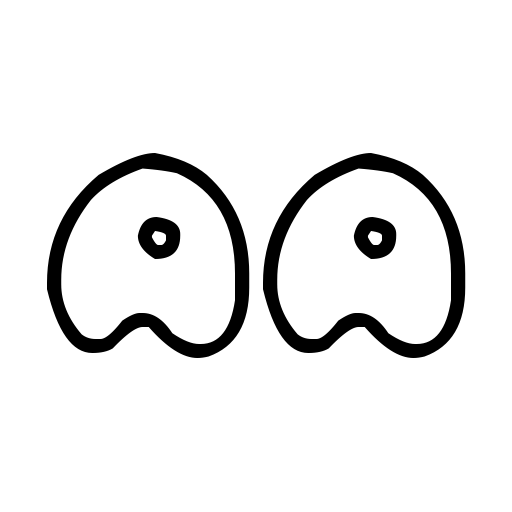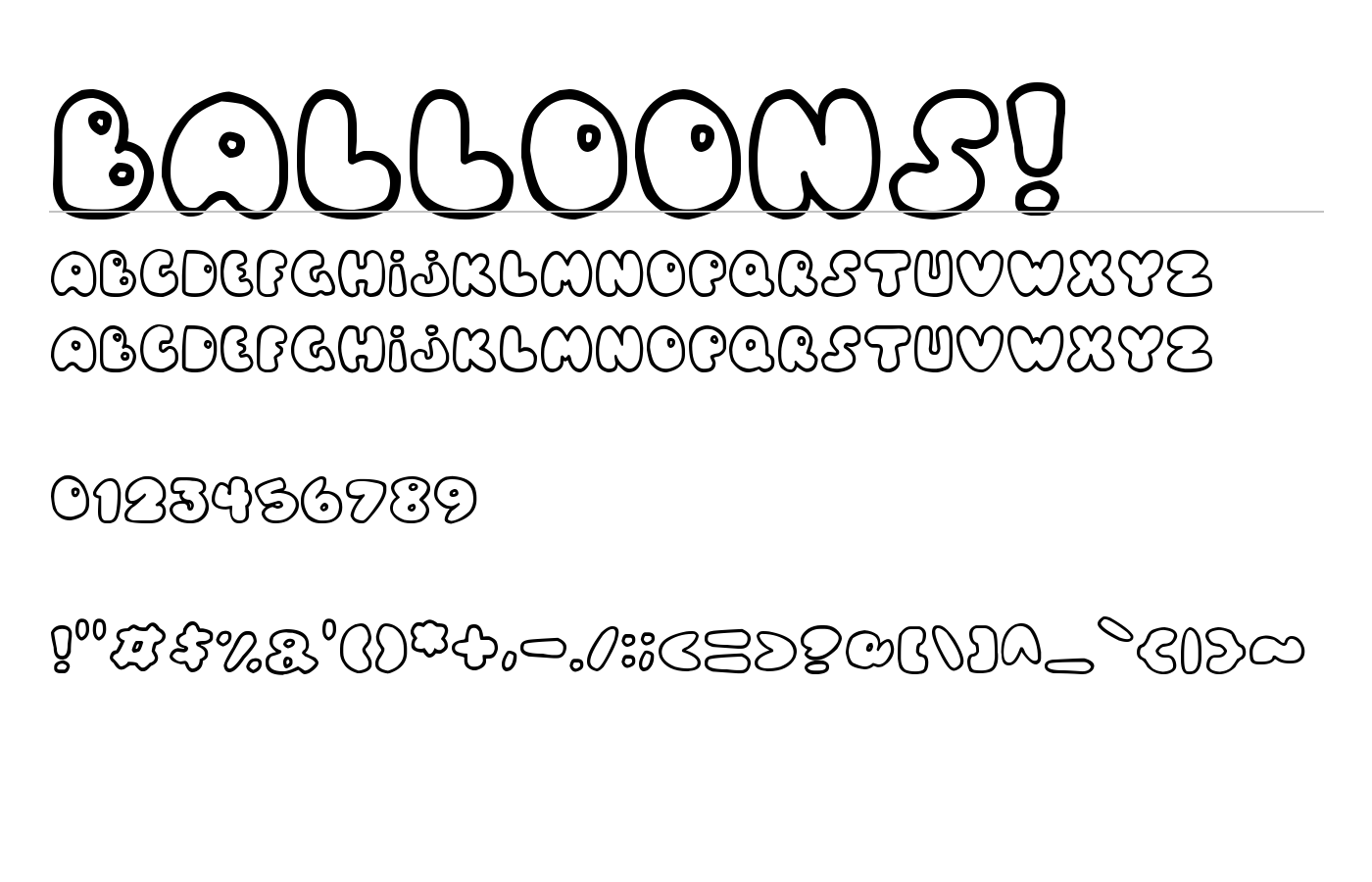
Balloons! is a playful, rounded sans serif font that mimics the light, inflated look of balloon shapes. Its irregular, chunky letterforms with soft, bubble-like outlines give it a fun and informal personality, making it perfect for children's designs, party invitations, and casual branding where a friendly, whimsical vibe is desired. This font works best in headlines and decorative uses rather than body text due to its bold, eye-catching style and unique character shapes.
Balloons! Font
About Balloons! Font
| Font family | Balloons! Font |
| Designer | Joseph Dawson |